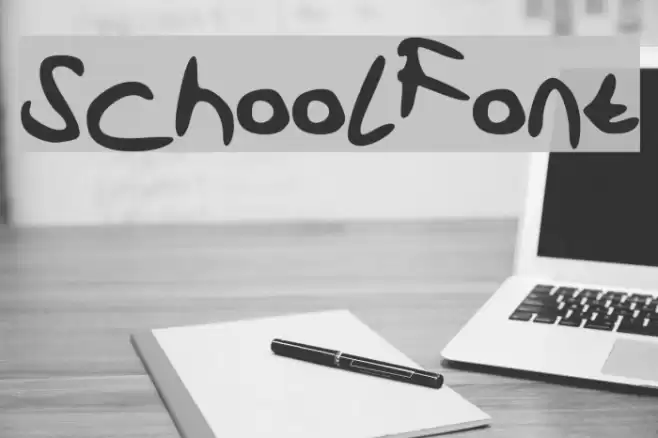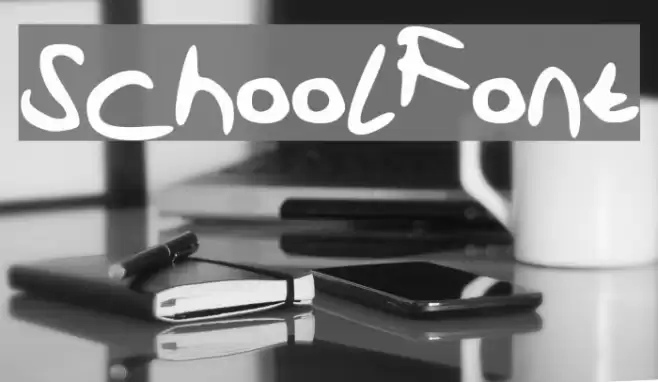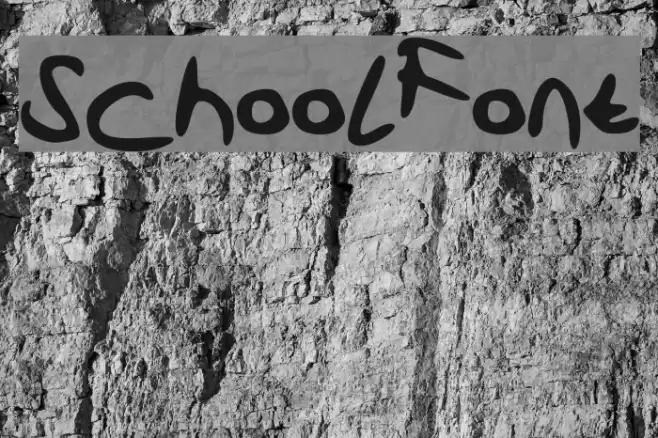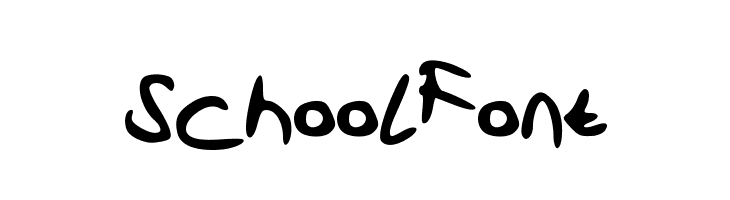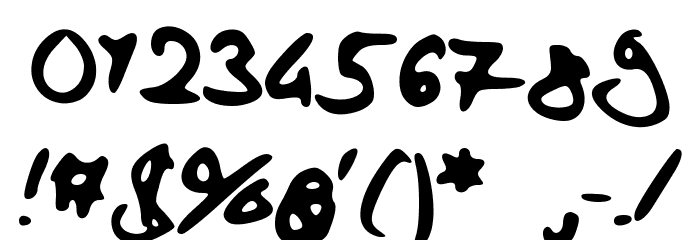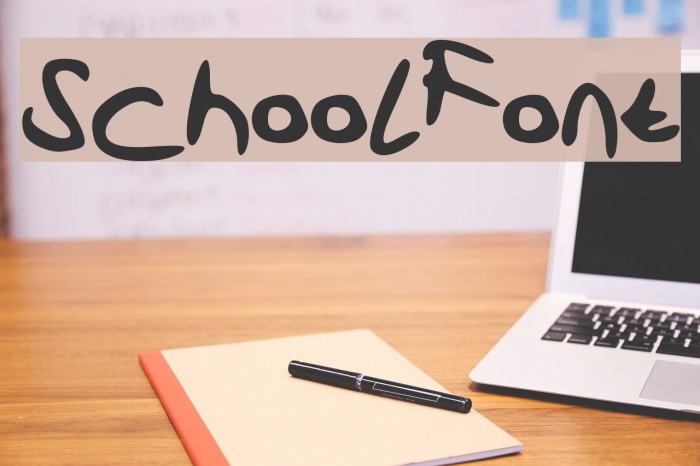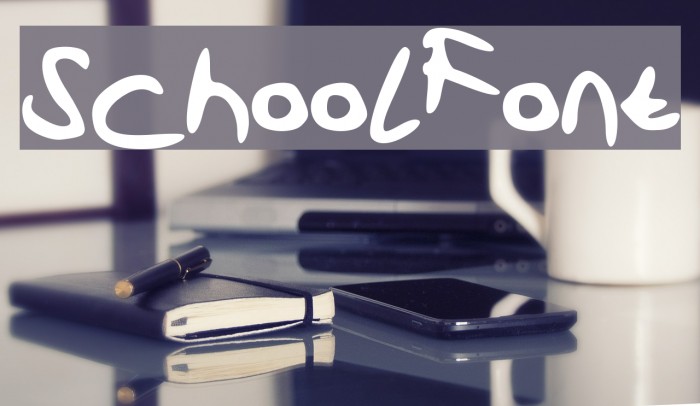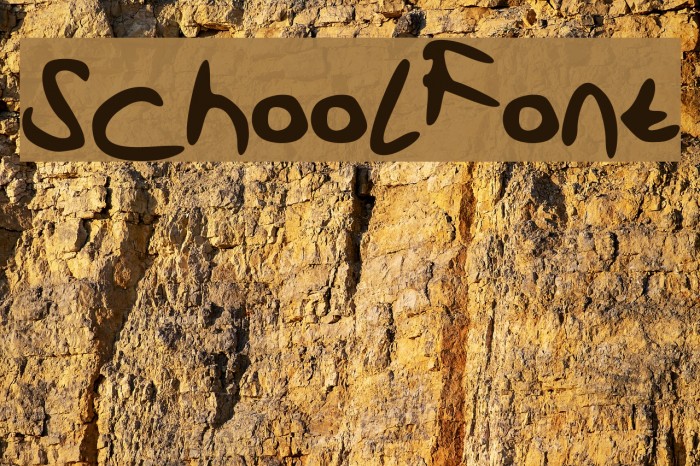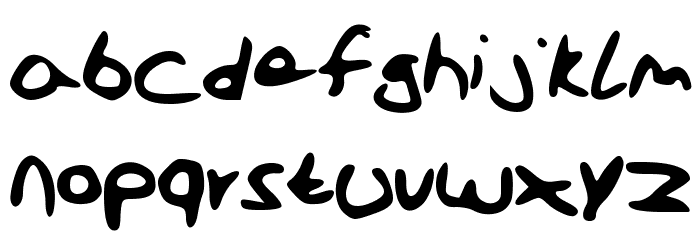
SchoolFont Font
SchoolFont Description
This font features a playful and informal handwritten style, reminiscent of casual school notes or doodles. The letters are bold and slightly irregular, giving them a lively and dynamic appearance. The uppercase and lowercase letters maintain a consistent style, with rounded edges and varying stroke thickness that adds to the font's charm. The numbers and special characters follow the same whimsical design, making the font versatile for creative projects. Its unique character spacing and organic flow make it ideal for projects that require a personal touch.
A playful, handwritten font with bold, irregular strokes and a lively appearance from Handwritten fonts.
- Proposed Projects: Ideal for children's books, educational materials, greeting cards, and playful branding.
- Overall Style: Playful
- Use Case: Headlines, Logos, Informal Text